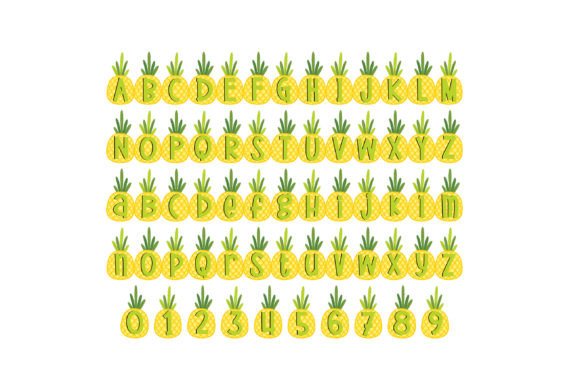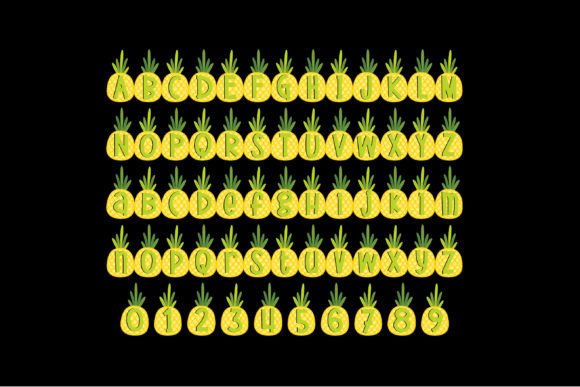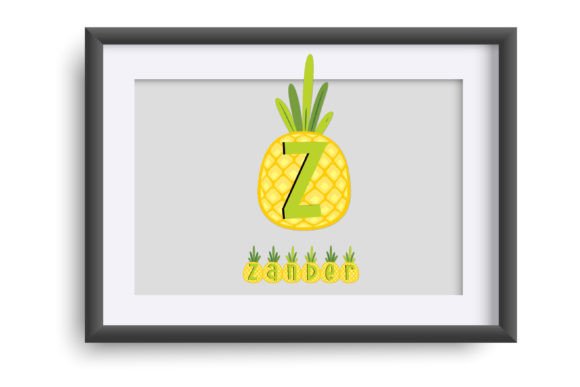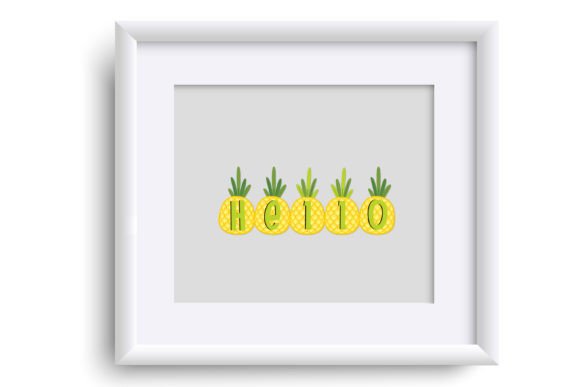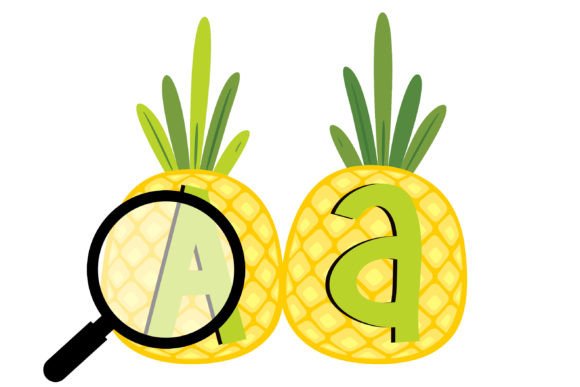
Pineapple Heart Font: A Sweet Addition to Your Design Arsenal
Do you ever find yourself staring at a blank canvas, searching for that one spark to ignite your creative project? I know I do. For designers, it’s that elusive combination of style and personality that can make a design truly stand out. That’s where the Pineapple Heart Font comes in – a full-color font that’s as sweet as it is versatile.
With its hand-crafted lettering nestled inside a juicy pineapple, this font is a design resource that’s sure to add a touch of whimsy to any project. Whether you’re working on a free download or a high-quality print piece, the Pineapple Heart Font is the perfect way to inject some fun and personality into your design. Plus, its transparent background makes it easy to use in a variety of creative contexts.
Key Features of Pineapple Heart Font
- This high-quality font features a unique, hand-drawn design with a transparent background, allowing for versatility in usage.
- The font includes multiple styles, including regular, bold, and italic, providing a range of options for designers.
- Pineapple Heart Font is a great addition to any designer’s toolkit, offering a unique and creative touch to any design project.
Honest Review: Pineapple Heart Font
I recently had the chance to work with the Pineapple Heart Font, and I must say it’s a delightful addition to any creative project. The font’s unique design makes it perfect for adding a touch of whimsy to your work.
What works well with this font is its high quality and versatility. It’s available for free download, making it a fantastic design resource for anyone looking to add some personality to their work. The transparent background option is also a nice touch, allowing for seamless integration into any design.
- ✨ Unique and playful design
- ✨ High quality and crisp typography
- ✨ Transparent background option
However, I do have to mention a few limitations. The font’s size range is somewhat limited, making it less suitable for larger projects. Additionally, the font’s bold weight could be more pronounced.
- ⚠️ Limited size range
- ⚠️ Bold weight could be more pronounced
Overall, the Pineapple Heart Font is a fun and creative addition to any design project. While it may have a few limitations, its unique design and high quality make it a worthwhile download for anyone looking to add some personality to their work.
Some common use cases for the Pineapple Heart Font include creating invitations, party decorations, and social media graphics. To get the most out of the font, experiment with different combinations of colors and fonts. Additionally, consider using the font in conjunction with other design resources, such as icons or graphics, to add depth and visual interest to your design.